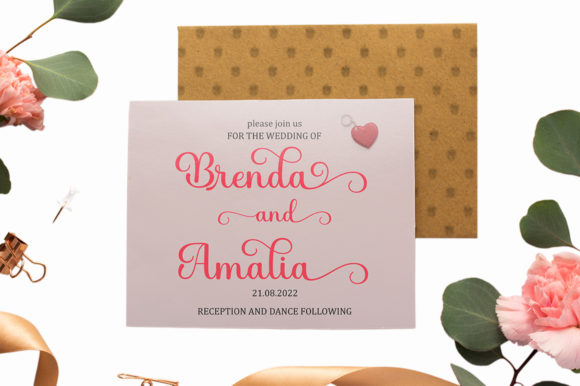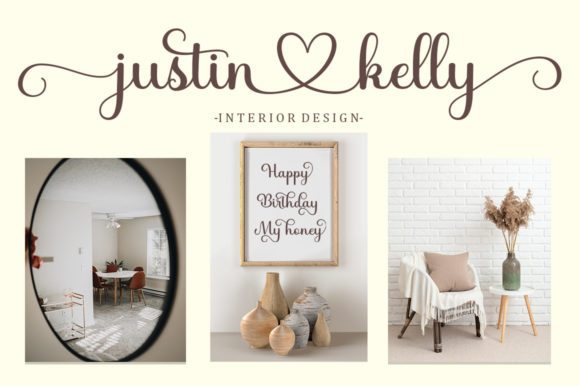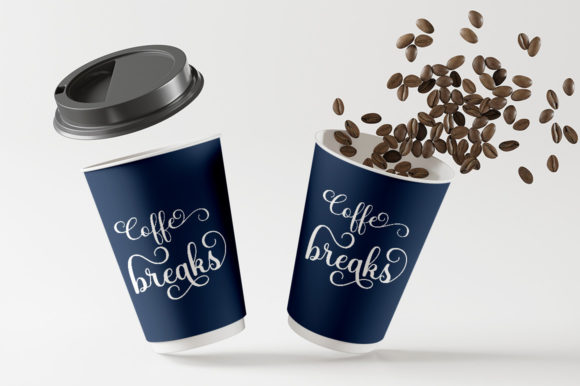
Introduction to Rastalia Font
Have you ever stared at a blank page, trying to bring a creative project to life, but the right words just wouldn’t flow? For many designers, this is a familiar feeling. But what if the perfect font could unlock your creativity and take your project to the next level? Enter the Rastalia Font, a dazzling script font that’s about to become your new design BFF.
With its neatly crafted and highly detailed design, the Rastalia Font is a game-changer for any creative project. Whether you’re working on a high-quality brochure, a website with a transparent background, or even a free download resource, this font is sure to elevate your design and make it stand out. And the best part? It’s PUA encoded, making it easy to access all the glyphs and swashes you need to add that extra touch of personality to your work.
Key Features of Rastalia Font
- Unique, hand-drawn design with a high level of detail, making it perfect for creative projects.
Honest Review: Rastalia Font
As a designer, I’m always on the lookout for high-quality design resources to elevate my creative projects. Recently, I stumbled upon the Rastalia Font, and I’m excited to share my honest review.
- ✨ Unique and stylish design: The Rastalia Font has a distinctive look that sets it apart from other fonts. Its eclectic style makes it perfect for designers who want to add a touch of personality to their projects.
- ✨ High quality: The font is well-designed and has a professional feel, making it suitable for a wide range of applications, from print to digital media.
Any limitations:
- ⚠️ Limited customization options: While the font is high-quality, it’s not customizable, which might be a drawback for designers who want to make adjustments to the font’s style or size.
- ⚠️ May not work well with transparent backgrounds: The font’s design may not be suitable for use with transparent backgrounds, which could affect its visibility.
Overall, I’m impressed with the Rastalia Font. Its unique design and high quality make it an excellent addition to any designer’s toolkit. While it has some limitations, I believe it’s a valuable resource for designers looking to add some flair to their creative projects.
The Rastalia Font is ideal for creative projects such as graphic design, digital art, and typography. It’s also perfect for business presentations, marketing materials, and websites.